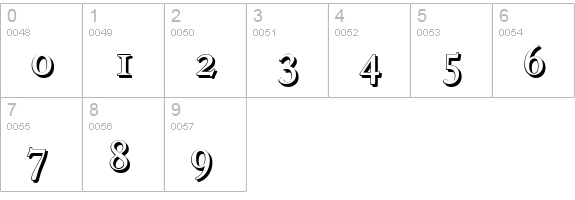
CasablancaShadow-Light-Regular Font Details
CasablancaShadow-Light-Regular is a refined, elegant variant in the CasablancaShadow typeface family \xE2\x80\x94 well suited to elegant body text, refined sub-headings, and luxury branding.
CasablancaShadow-Light-Regular is a stunning and versatile font that effortlessly combines elegance with modernity. With its sleek lines and subtle shadow effect, this typeface adds a touch of sophistication to any project. The perfectly balanced blend of light and shadow creates a harmonious visual impact that is both eye-catching and professional. This font is perfect for a wide range of design projects, including branding, packaging, invitations, and more. Its clean and crisp letterforms make it easily readable at any size, while the shadow effect adds depth and dimension to your text. Whether you're looking to create a sleek and contemporary look or add a touch of drama to your design, CasablancaShadow-Light-Regular has you covered. Best of all, CasablancaShadow-Light-Regular is available for free download at FontsMarket.com. This means you can elevate your design projects without breaking the bank. So why wait? Download CasablancaShadow-Light-Regular today and take your designs to the next level.